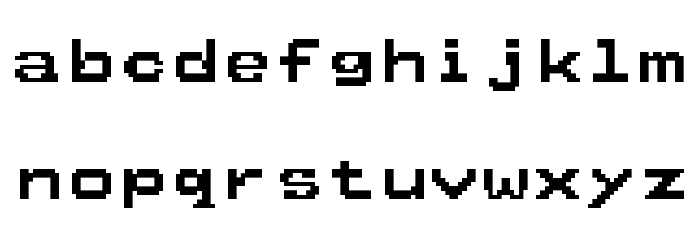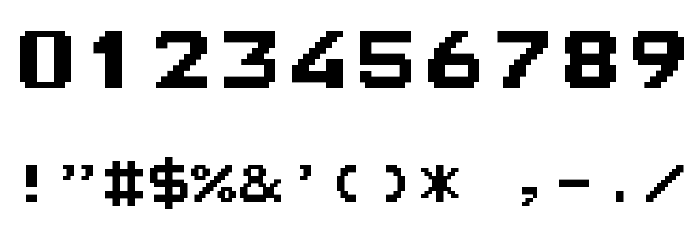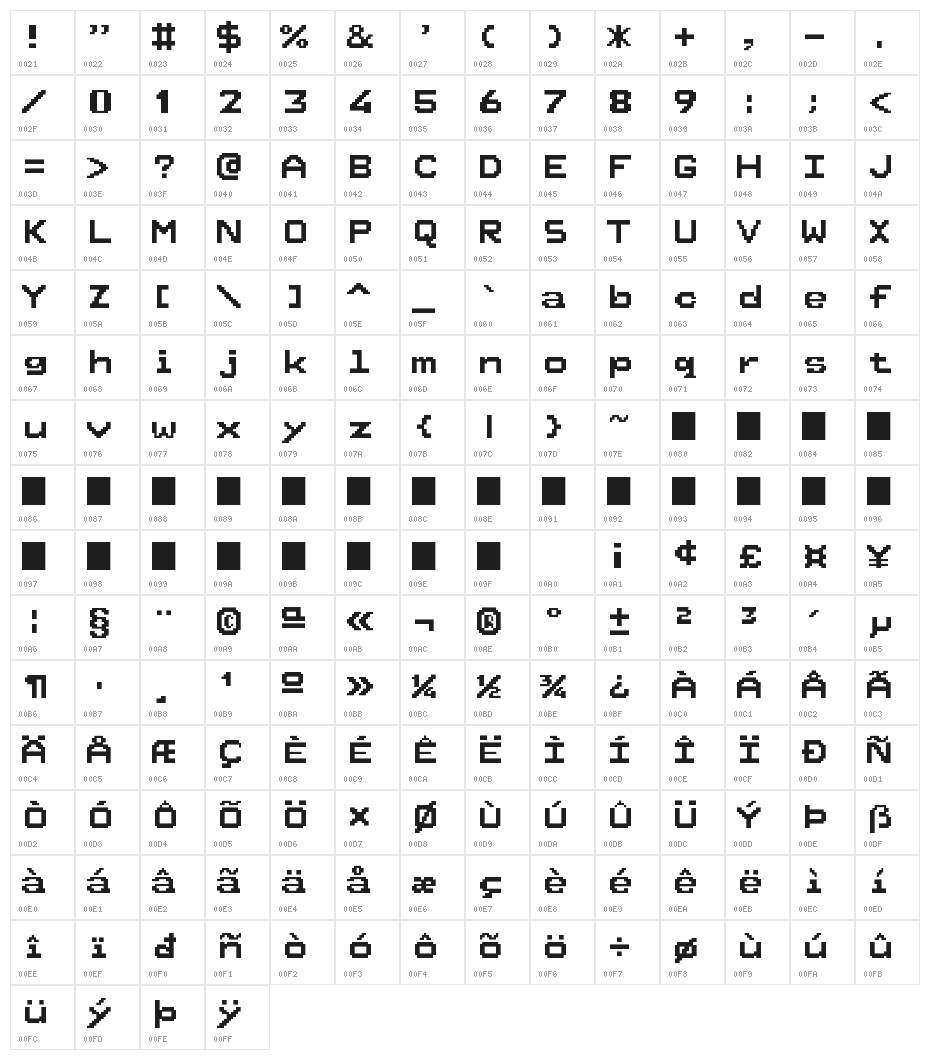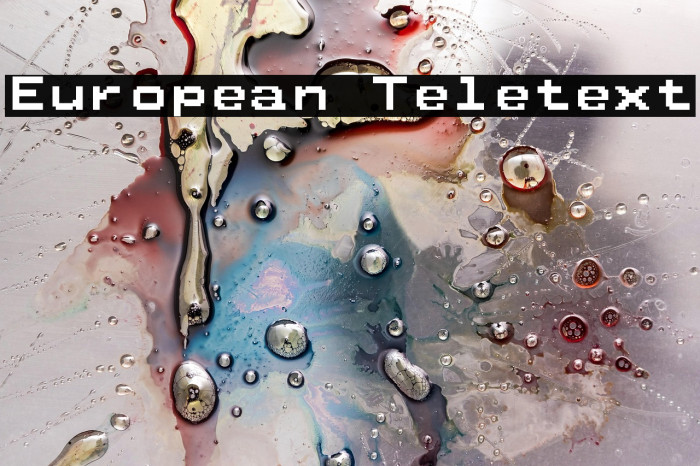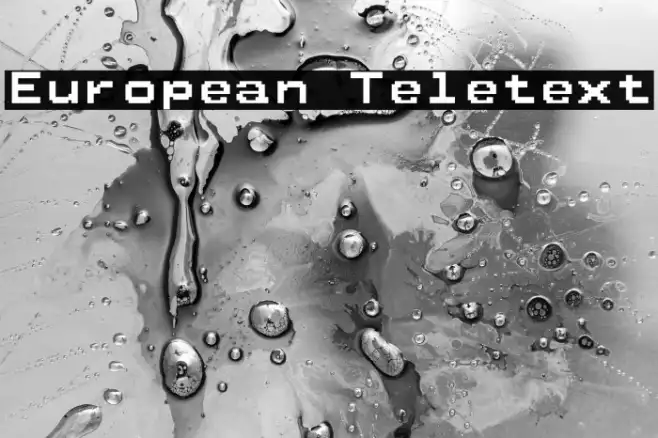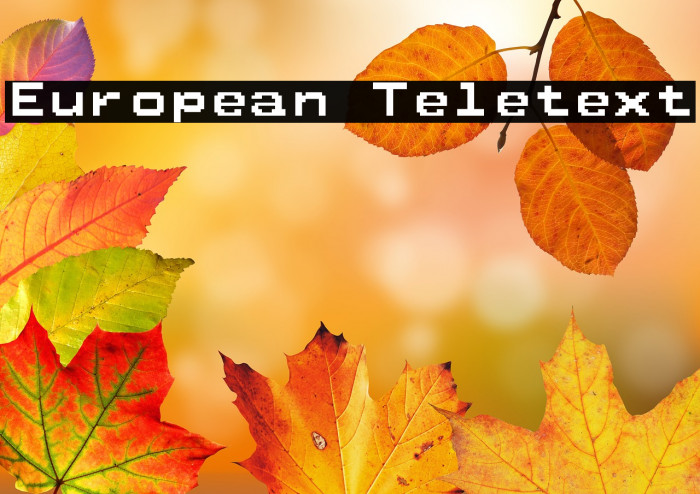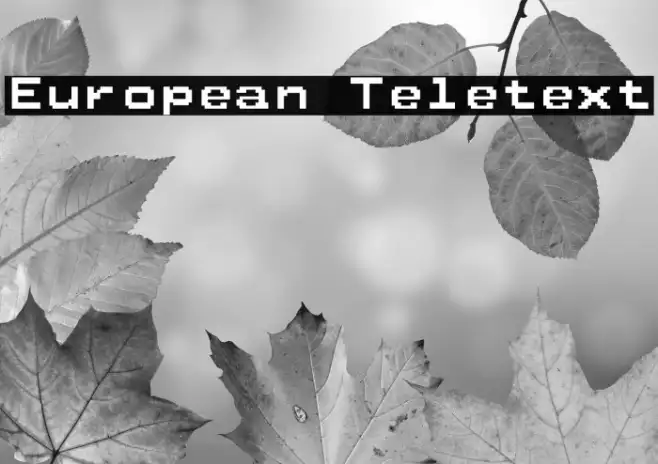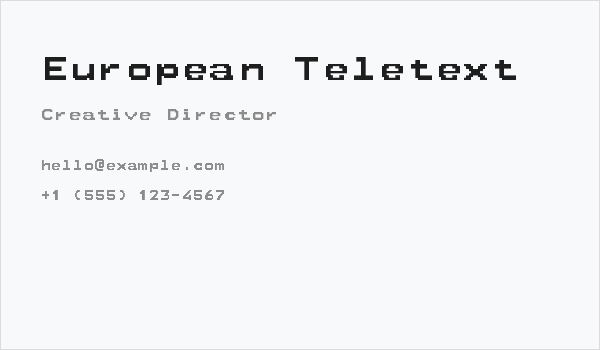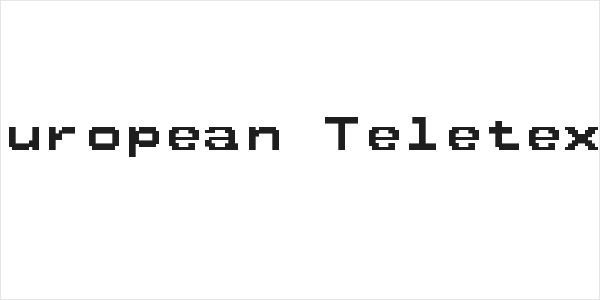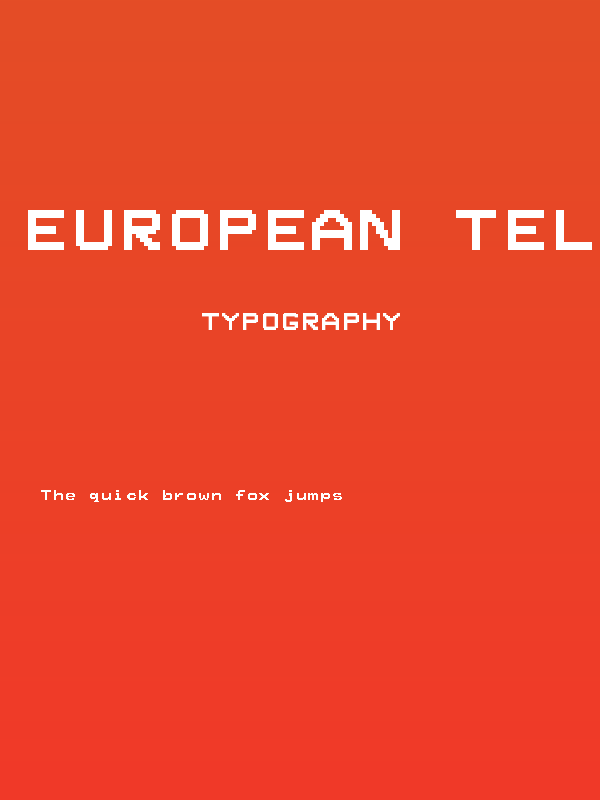
European Teletext Font
This font features a distinct pixelated style reminiscent of early digital displays and teletext systems. Each character is constructed with a grid-like precision, giving it a retro, digital aesthetic. The uppercase and lowercase letters maintain a consistent height, contributing to a uniform appearance. The numerals and special characters follow the same pixelated design, ensuring a cohesive look across all glyphs. This font's simplicity and clarity make it ideal for digital displays or projects that require a nostalgic, tech-inspired feel.
A pixelated, retro-style font inspired by early digital displays.
- Proposed Projects: Ideal for retro-themed designs, digital art, video game interfaces, and tech-inspired branding.
- Overall Style: Vintage
- Use Case: Headlines, Logos, Digital displays